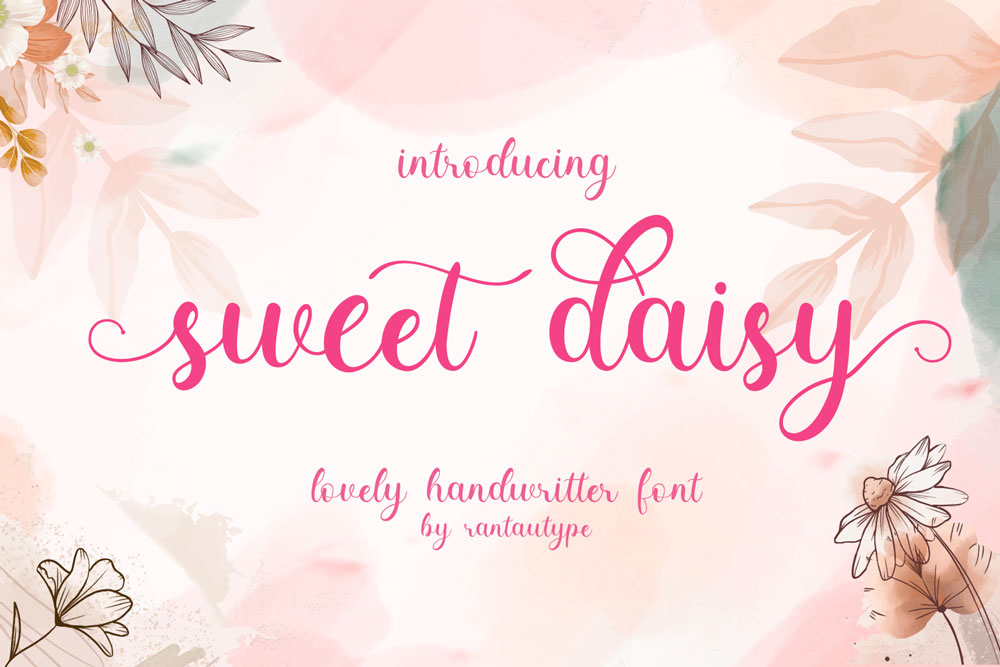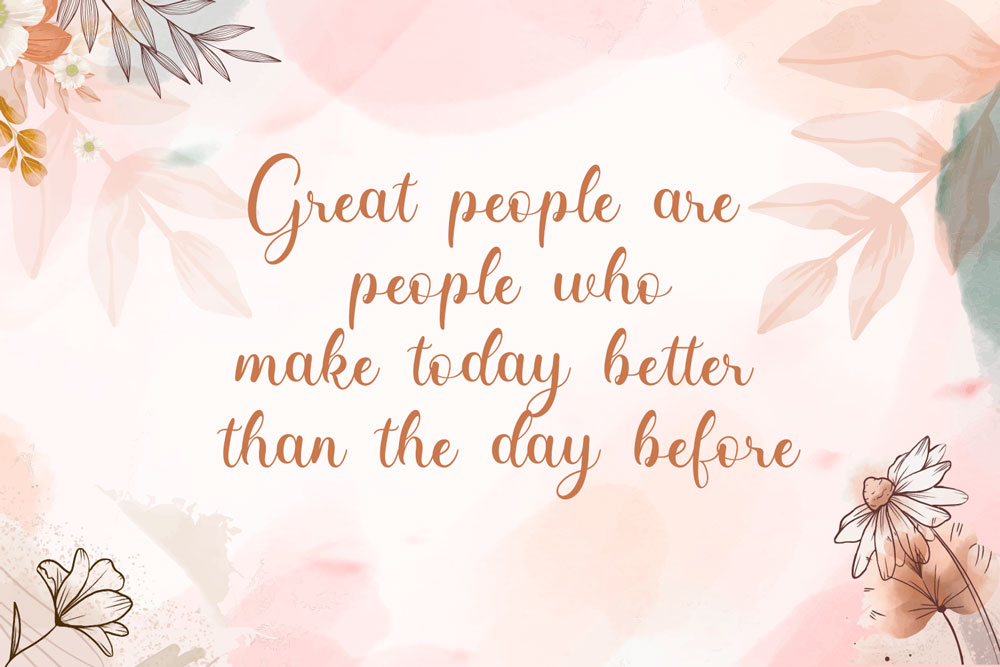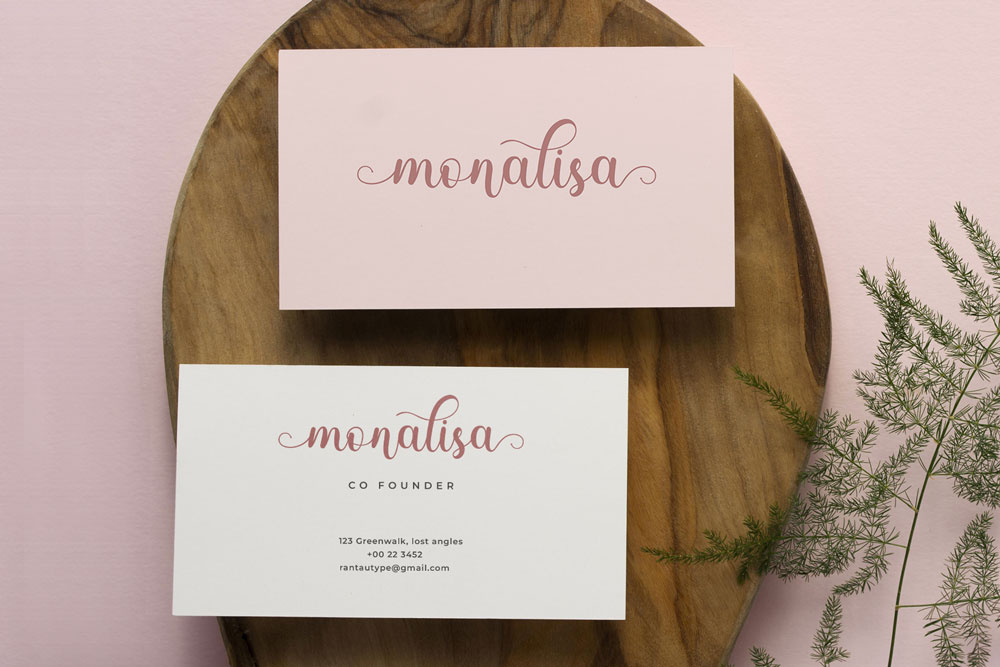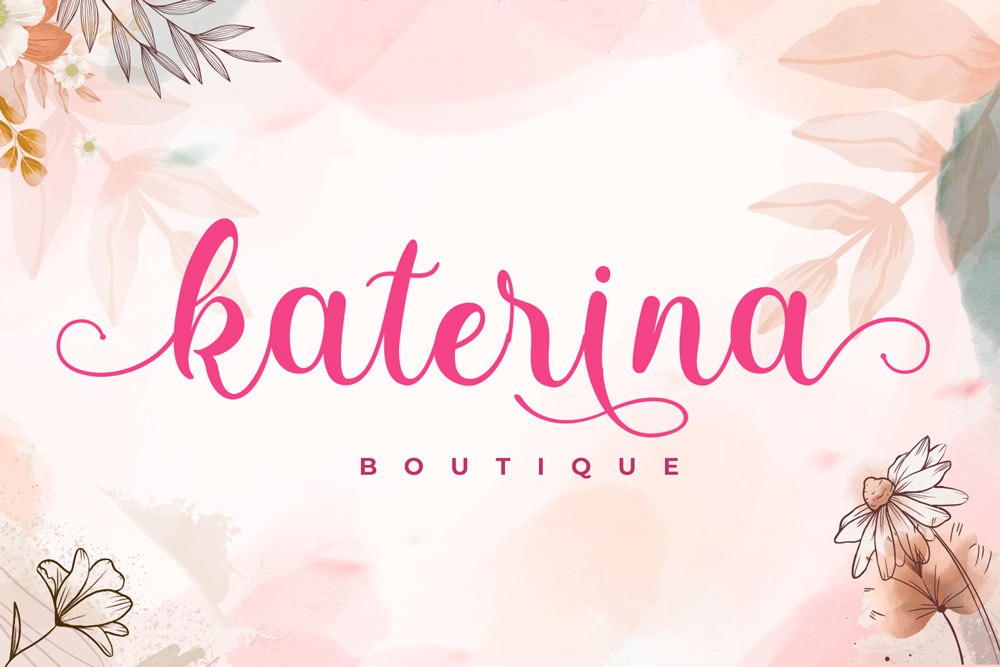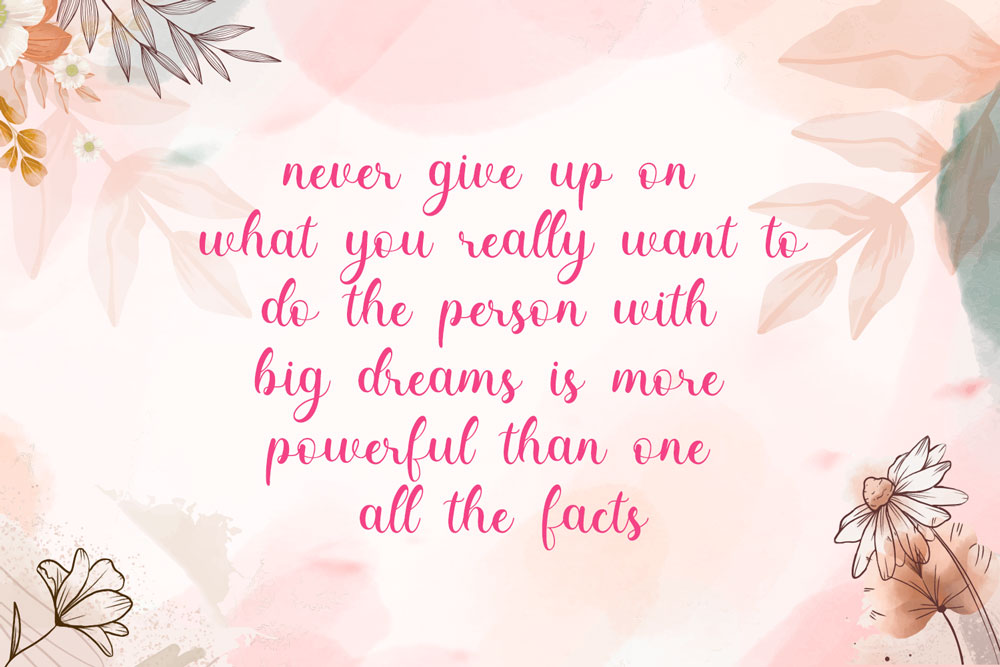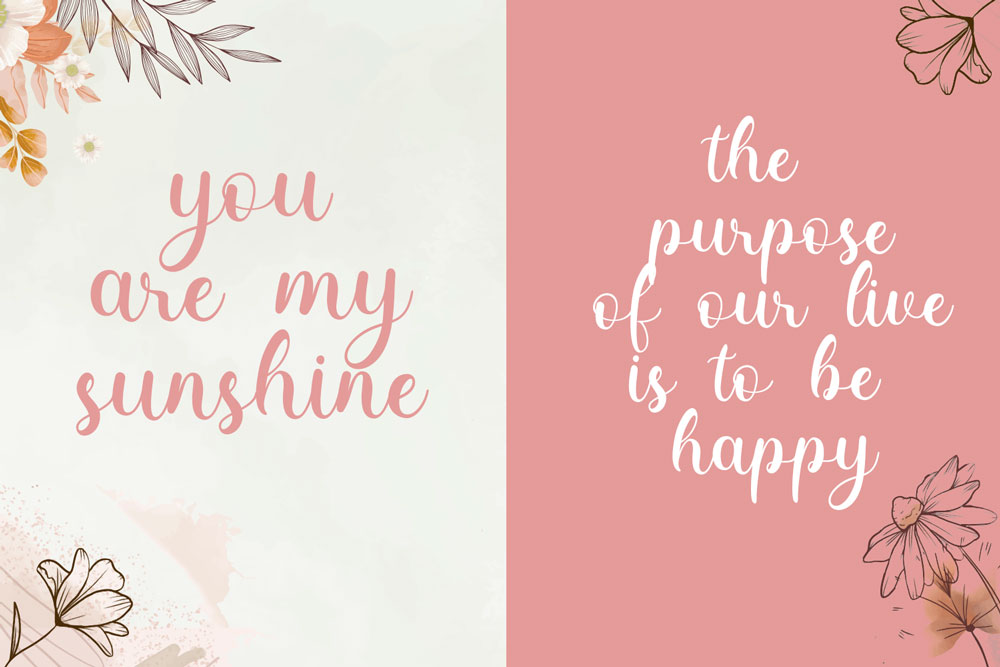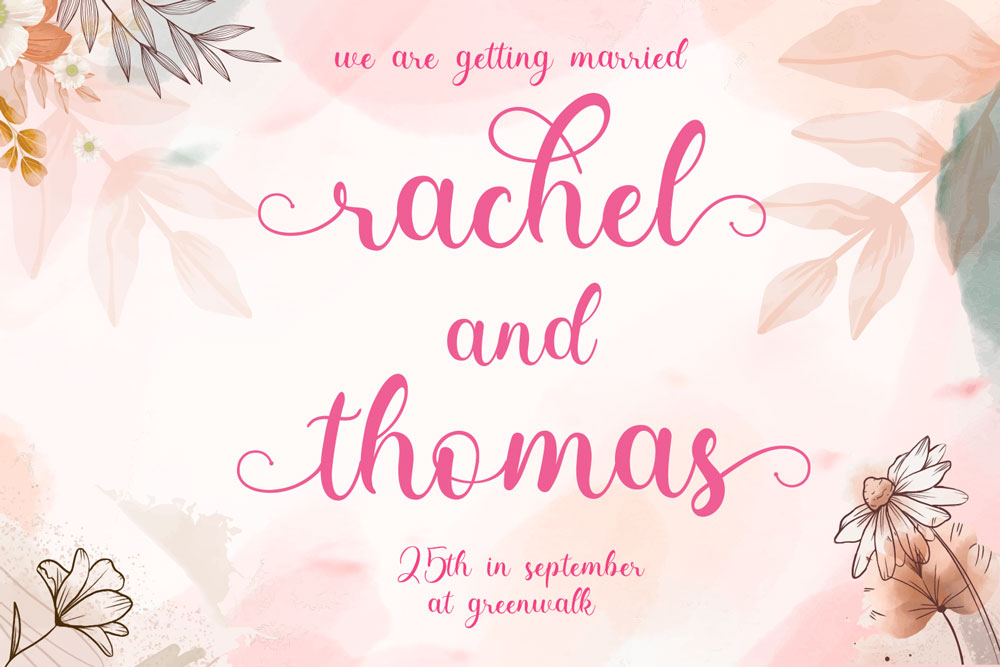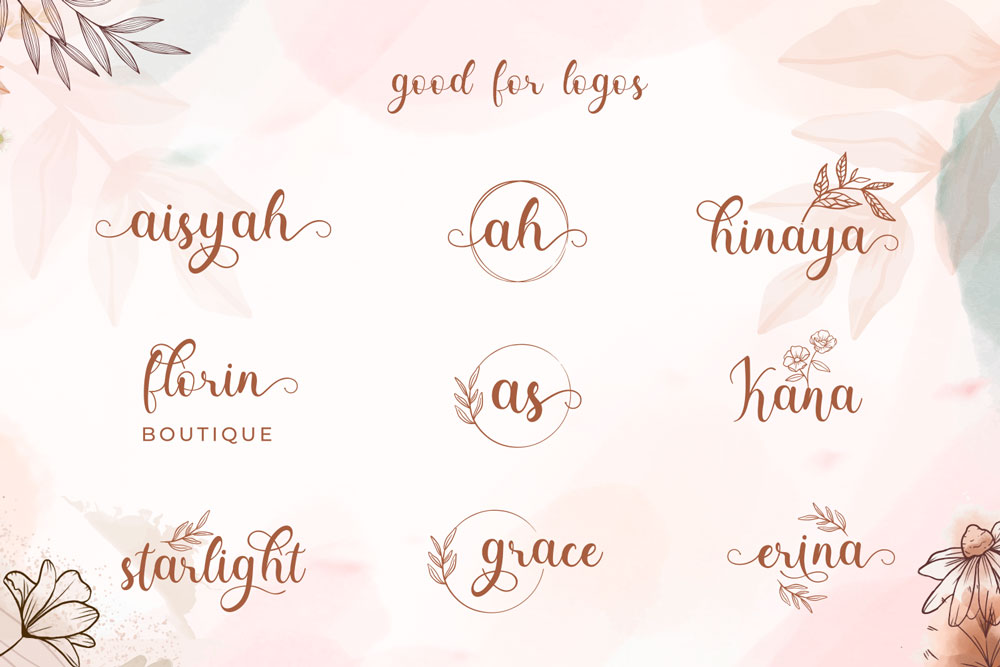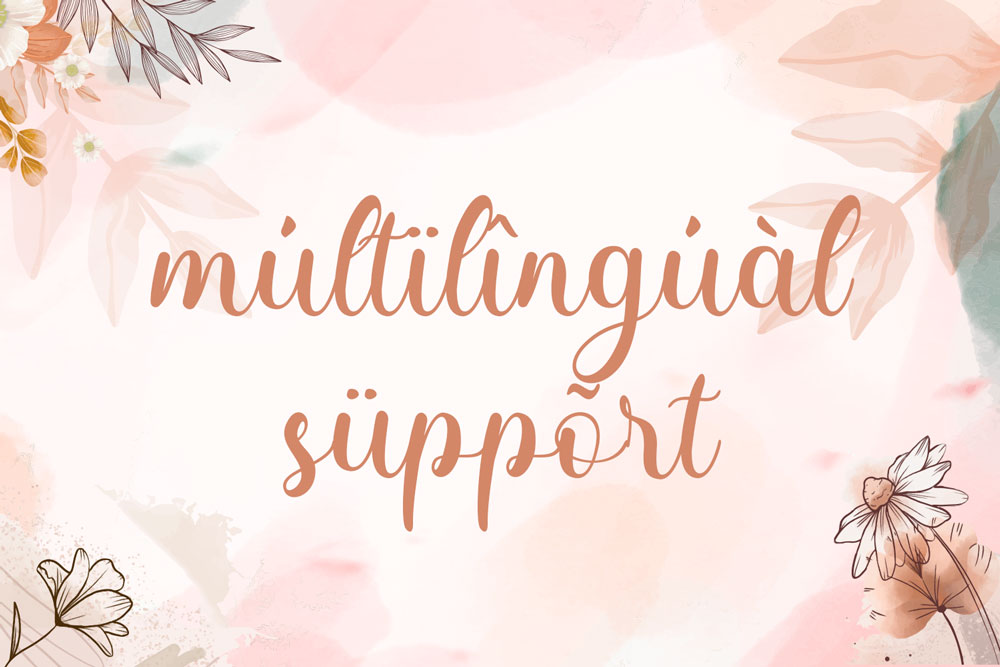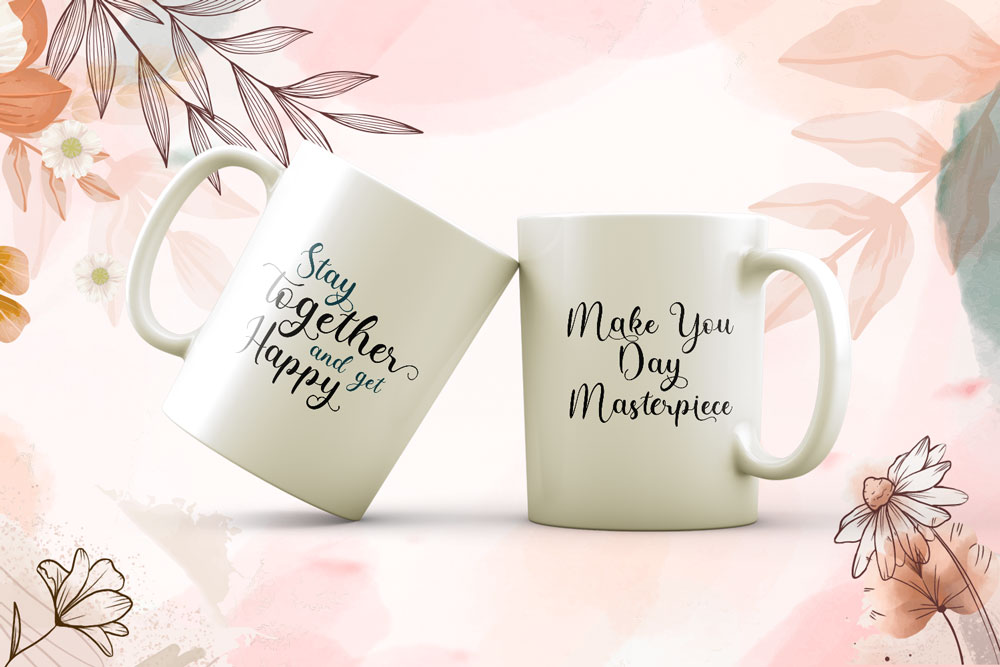
Sweet Daisy lovely handwritten font
Sweet Daisy is lovely fontĀ  which can be interpreted professional. I keep this font looks modern, feminine, girly, catchy and easy to use also already opentype feauture. Sweet Daisy is the great choice for watermark on wedding organizer, signature or signature logo design, quotes, album cover, business card and many other design project. Sweet Daisy is here to make your work or your business to high level!!!